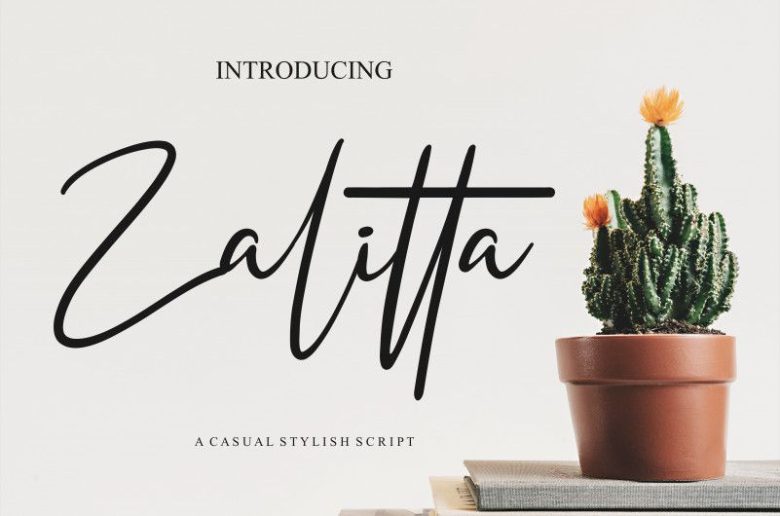
Zalitta Handwritten Font
This font pairs beautifully with many fonts and can be used in a variety of different scenarios!
Perfect for many design projects such as logo design, branding, blog graphics, stylizing quotes, wedding stationery, art prints, collateral design, packaging, social media, and so on.